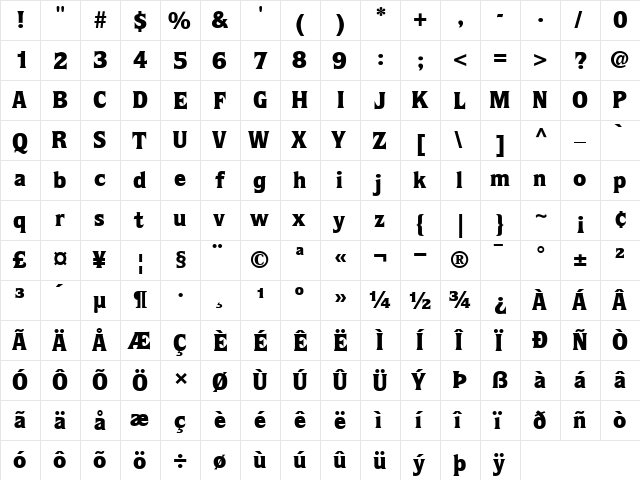
ITCQuorum-Black Black Font Preview
ITCQuorum-Black Black
Design Context for ITCQuorum-Black Typeface
ITCQuorum-Black offers clean, dependable letterforms without strong stylistic allegiance, making it a practical choice for designers who need flexibility.